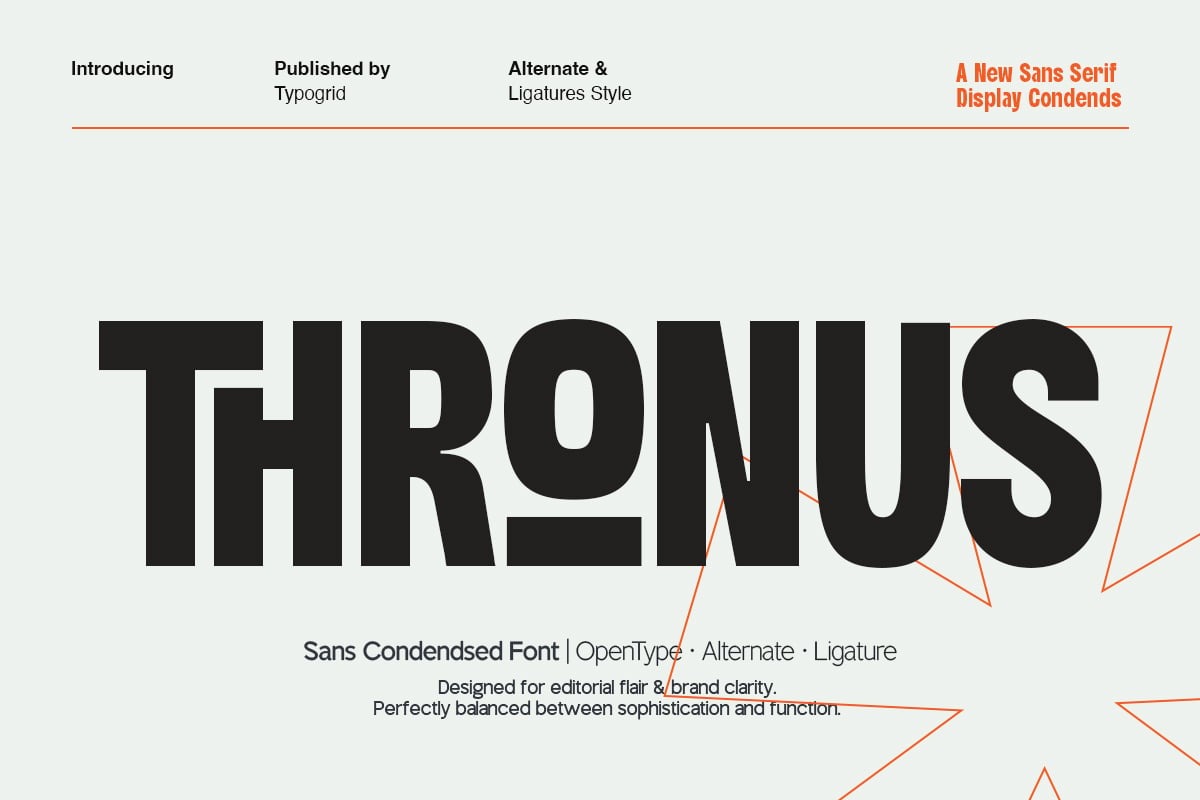
Thronus Font
Thronus Font brings a balanced structure and contemporary look, making it suitable for both digital and print design. Thronus — the groundbreaking sans serif display condensed font that’s about to redefine your design vocabulary. This isn’t just another typeface addition to your collection. Notice how the name itself tells a story. “Thronus” — evoking strength, elevation, and authority. Yet look at those dynamic geometric overlays dancing around the letterforms! This beautiful contradiction is exactly what makes this font so compelling.
Can you see the precision in every character? Each letter has been meticulously crafted to deliver maximum impact while maintaining that crucial readability factor. The condensed nature means you get more visual punch in less space perfect for headlines that need to grab attention instantly.
But here’s what makes Thronus truly special… It comes packed with alternate characters and ligature styles that give you the creative flexibility to make every project uniquely yours. Whether you’re designing for bold advertising campaigns, modern magazine layouts, or cutting-edge digital interfaces, Thronus adapts to your vision.